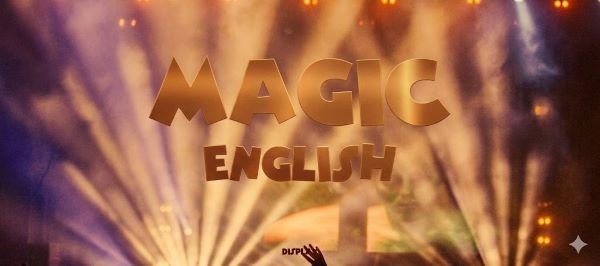
Magic English Font
Magic English Font is a Cartoon Font by Lu9 — a bold, thick all-caps recreation of the iconic Disney lettering used in the beloved 90s Magic English video series, bringing that legendary visual warmth to any creative project with unmistakable pop art personality. Its chunky, approachable letterforms impress viewers of any taste and make every design feel instantly playful.